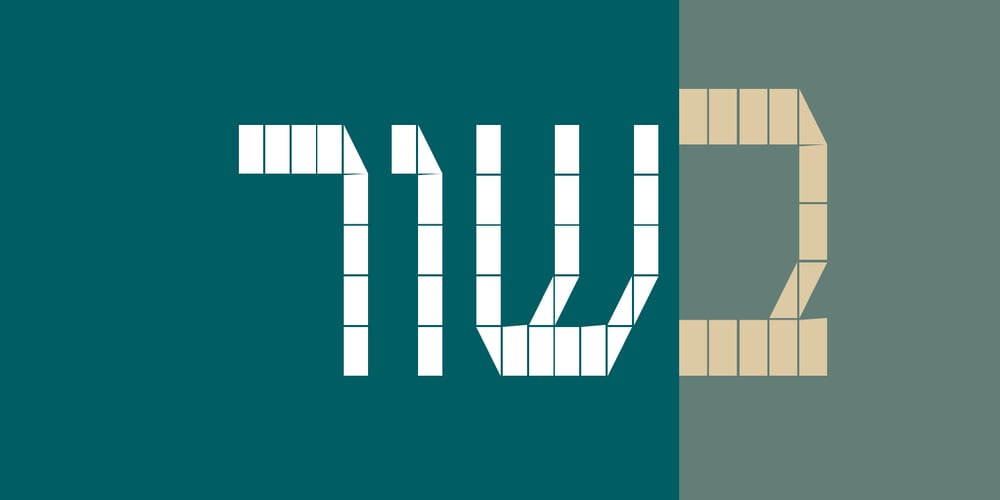
Shaar Five MF
Shaar Five MF font
Shaar Five MF Font Family was designed by Zvika Rosenberg and published by Masterfont. Shaar Five MF contains 1 styles and family package options. High end digital text for sport events ar any sport related desin.